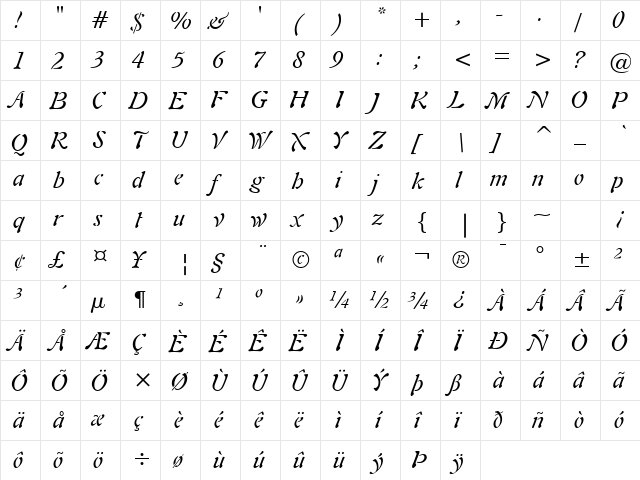
Lushlife-Italic Medium
Design Context for Lushlife-Italic Typeface
Lushlife-Italic takes a measured approach to typography — its balanced proportions and neutral character make it a reliable workhorse for both digital and print work. Its italic angle brings a sense of urgency and motion to the letterforms.
Pro Tip: Use Lushlife-Italic for emphasis, pull quotes, and subheadings where its slanted energy can add rhythm to the layout.